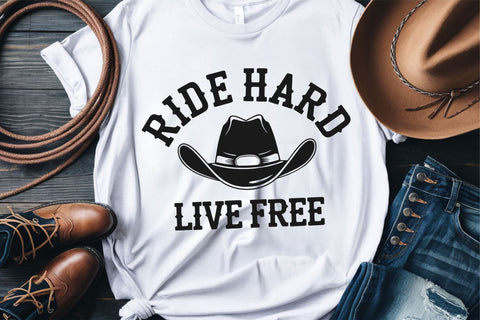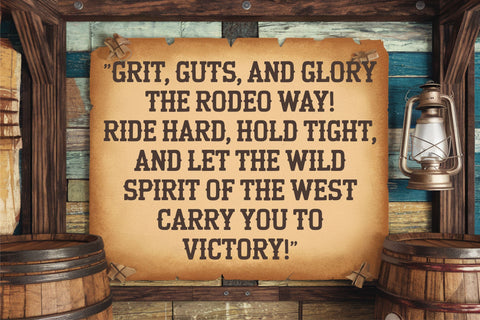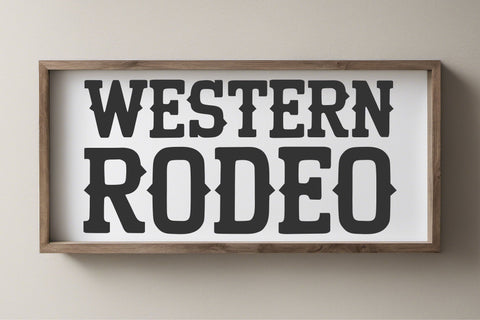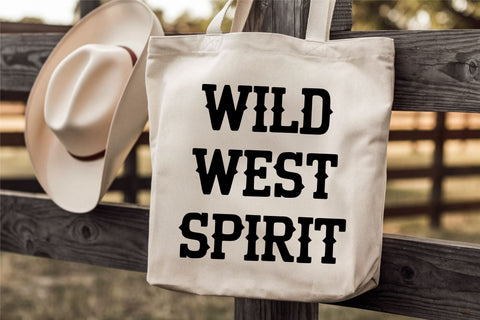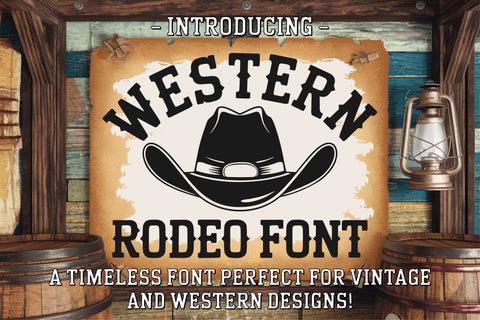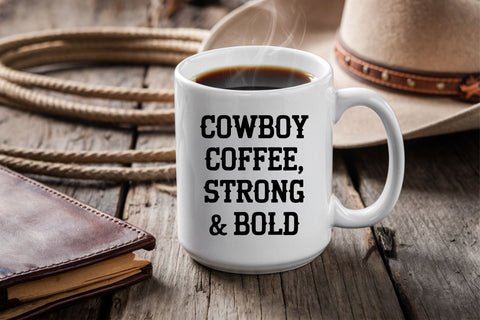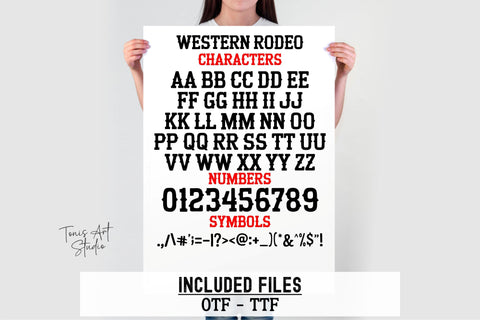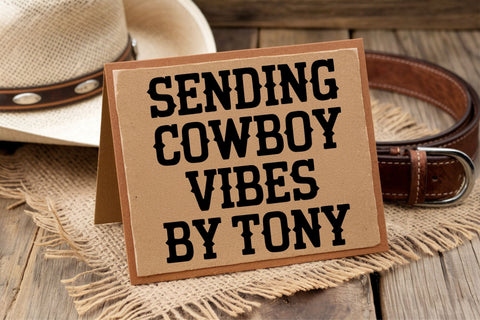
Western Rodeo Font, Cowboy Typeface, Rustic Wild West Letter
The Western Rodeo Font is a bold, rugged cowboy typeface inspired by the Wild West. Perfect for rodeo branding, farmhouse decor, rustic signage, and Western-themed designs.
This rustic display font is ideal for Cricut and Silhouette projects, sublimation designs, t-shirts, mugs, and rodeo posters. Whether you're creating country-style invitations, vintage signage, or cowboy-themed merchandise, this font delivers an authentic Western aesthetic.
✔ Western Rodeo Font – Bold cowboy typeface
✔ Perfect for t-shirts, mugs, posters, banners, and Western branding
🏆 Perfect For:
🤠 Rodeo Logos & Branding
🏕 Farmhouse & Rustic Designs
🎨 Cricut & Sublimation Projects
👕 T-Shirts, Mugs, Stickers & Tote Bags
📢 Saloon Signs & Western Posters
🏡 Country Home Decor & Digital Crafts